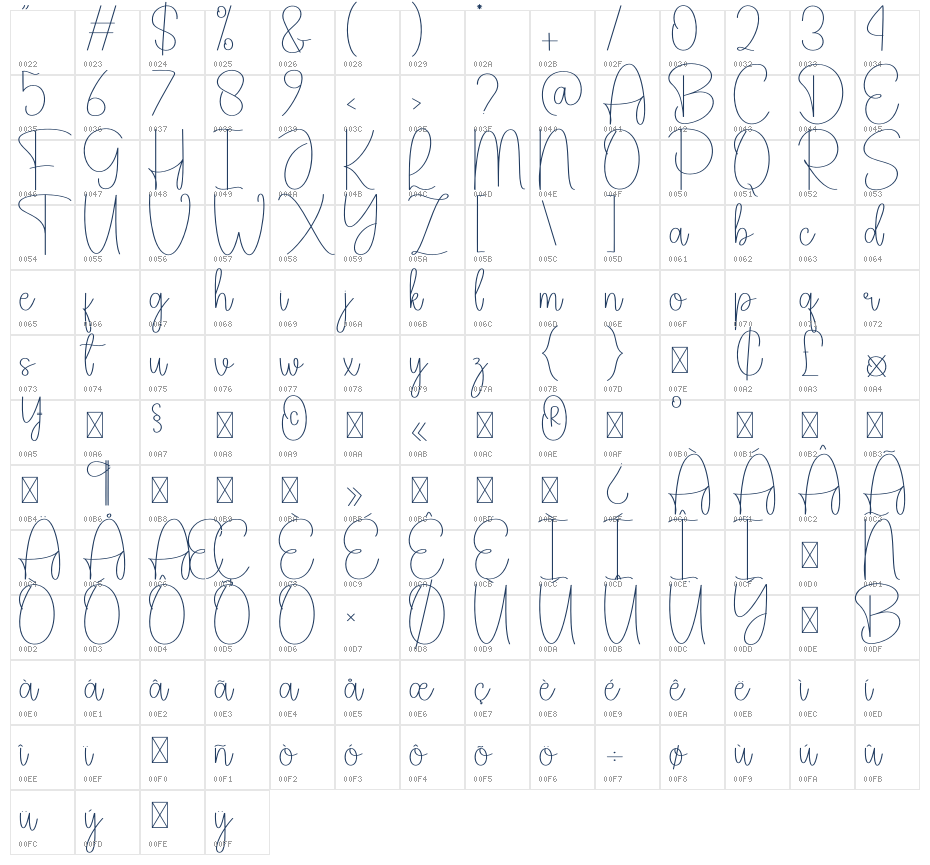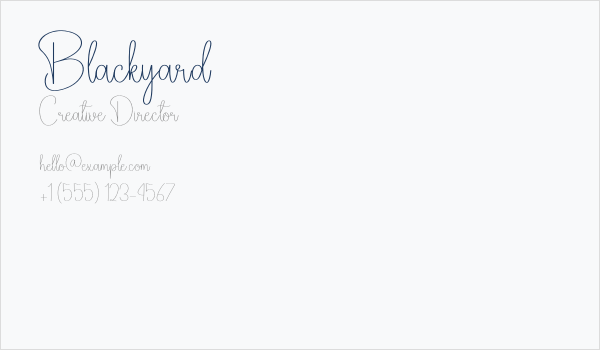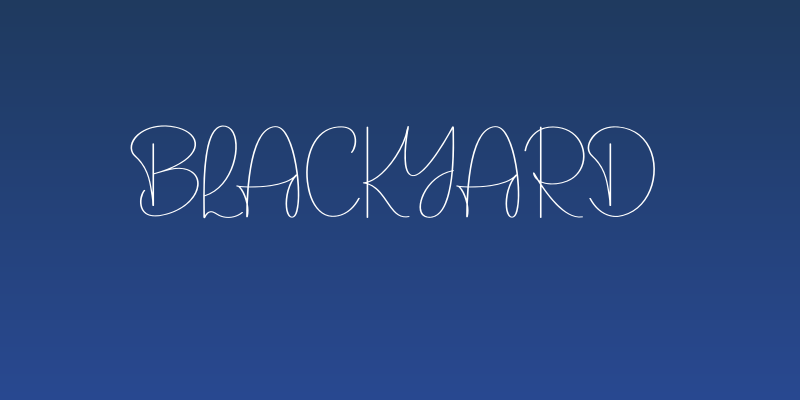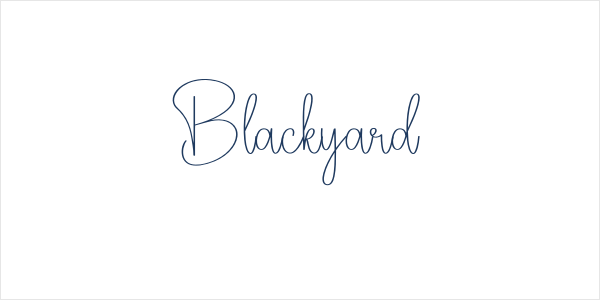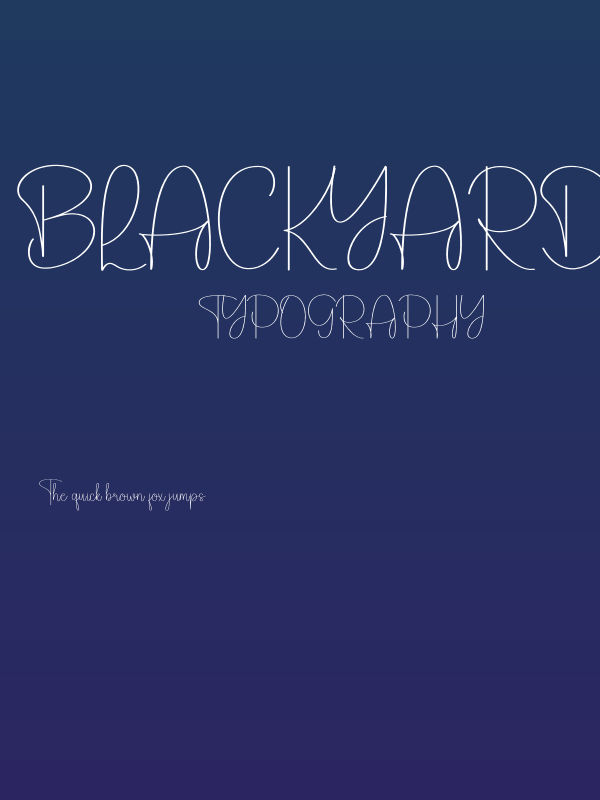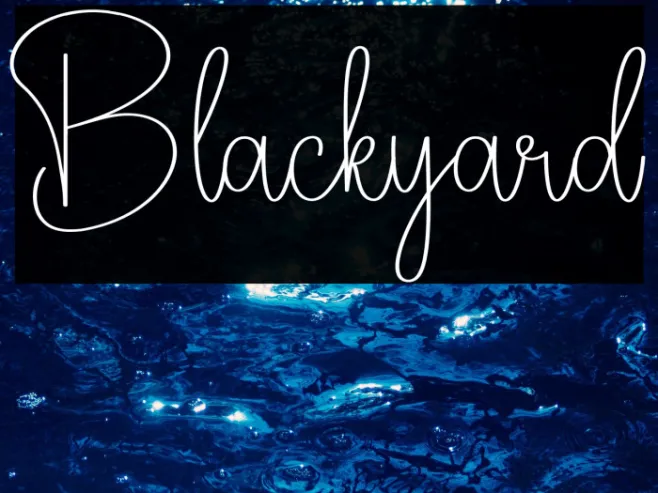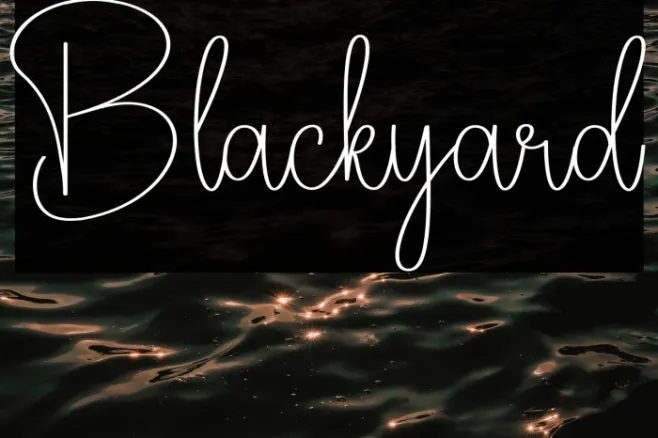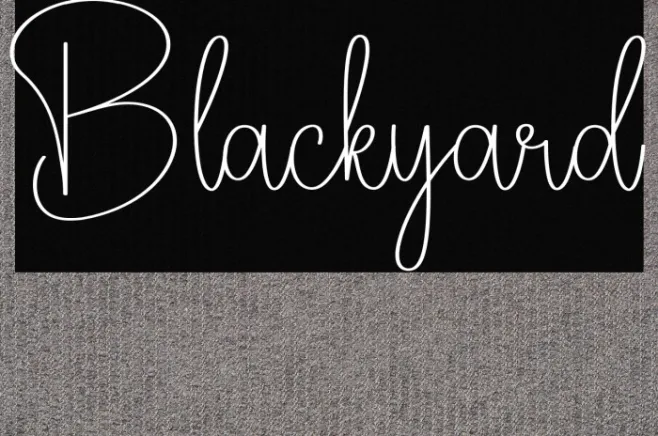
Blackyard Font
Blackyard Description
A delicate, handwritten script font with a casual, flowing style, featuring thin strokes and a slightly whimsical appearance.
| Overall Style | Casual, Elegant, Handwritten |
| Use Case | Headlines, Invitations, Personal branding, Logos |